Brand new artistic or creative style bundle with 11 fonts & 700+ graphic elements. All these fonts & graphics are very unique so you can use it for any kind of creative projects 😉
Artistic Fonts & Graphics from RedInk contains 11 creative style fonts in 7 families & 700+ illustrations or graphic elements! Don’t miss this artistic style typography & graphics bundle 😉
- 11 creative style fonts in 7 families & 700+ illustrations or graphic elements!
11 creative style fonts in 7 families & 700+ illustrations or graphic elements!
01. Sloth Adventures – Big graphic set from RedInk
‘Sloth Adventures’ is a big collection with detailed cartoon cliparts, lettering messages, seamless patterns and pre-made cards.
Detailed cartoon clip art elements in same color as on the preview images with lettering pieces and super cute patterns will add a little joy to any project. Use individually or all together for a fun invitation, blog template, personal print to create greeting cards or use graphic on t-shirts, posters, mugs and other beautiful projects you are working on.
Сhildren and adults, all those who love these cute animals will be happy to receive a thing with this big collection – ‘Sloth Adventures’
Flat style and no stroke, allows you to change the size of animals all the details relative to each other, while the overall composition will look organic.
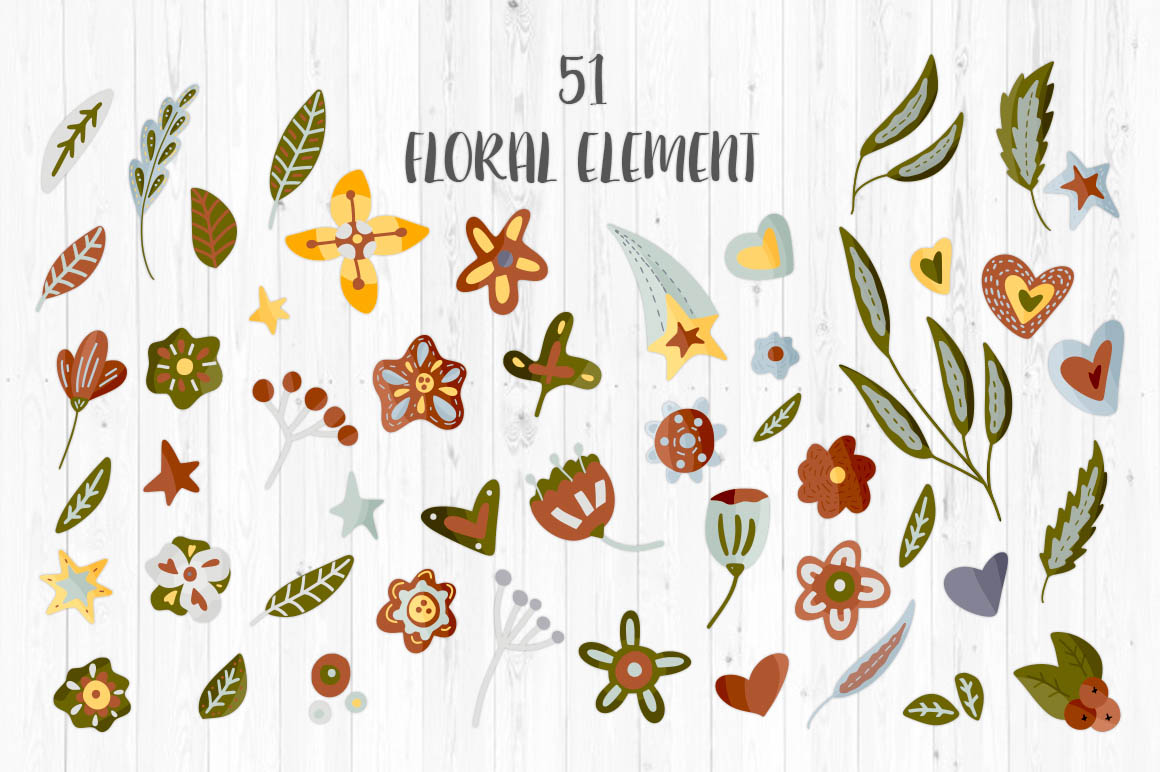
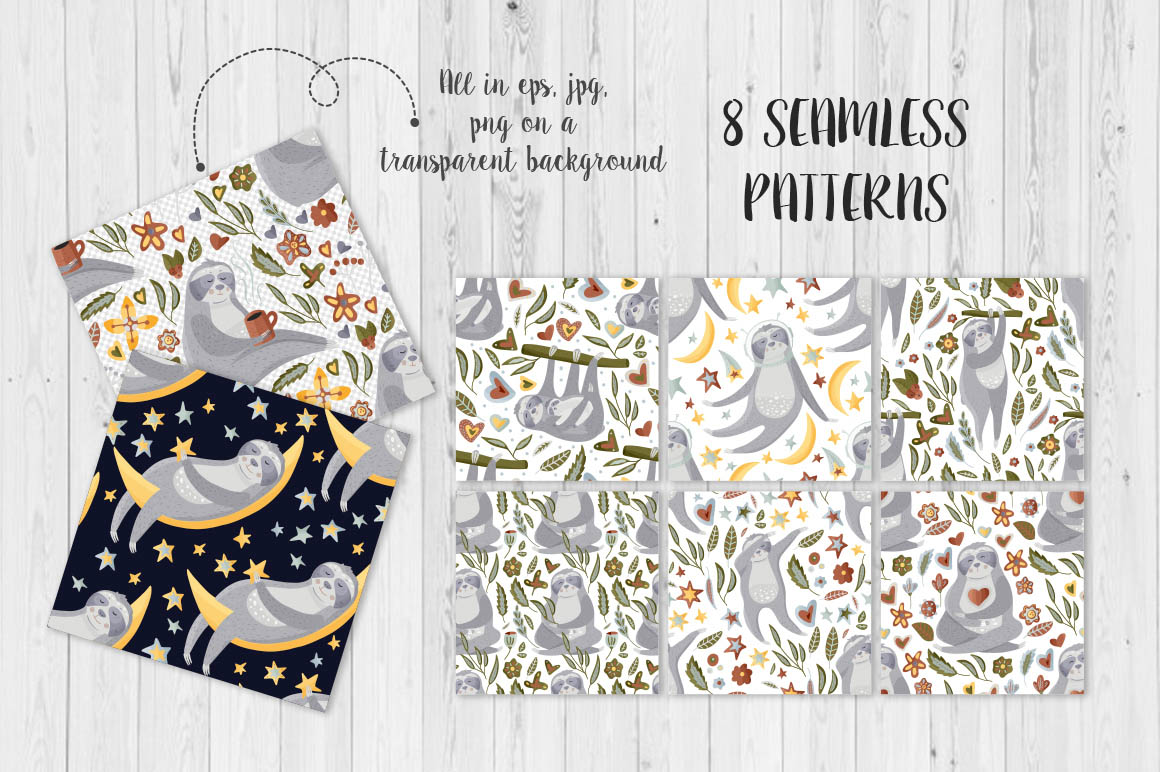
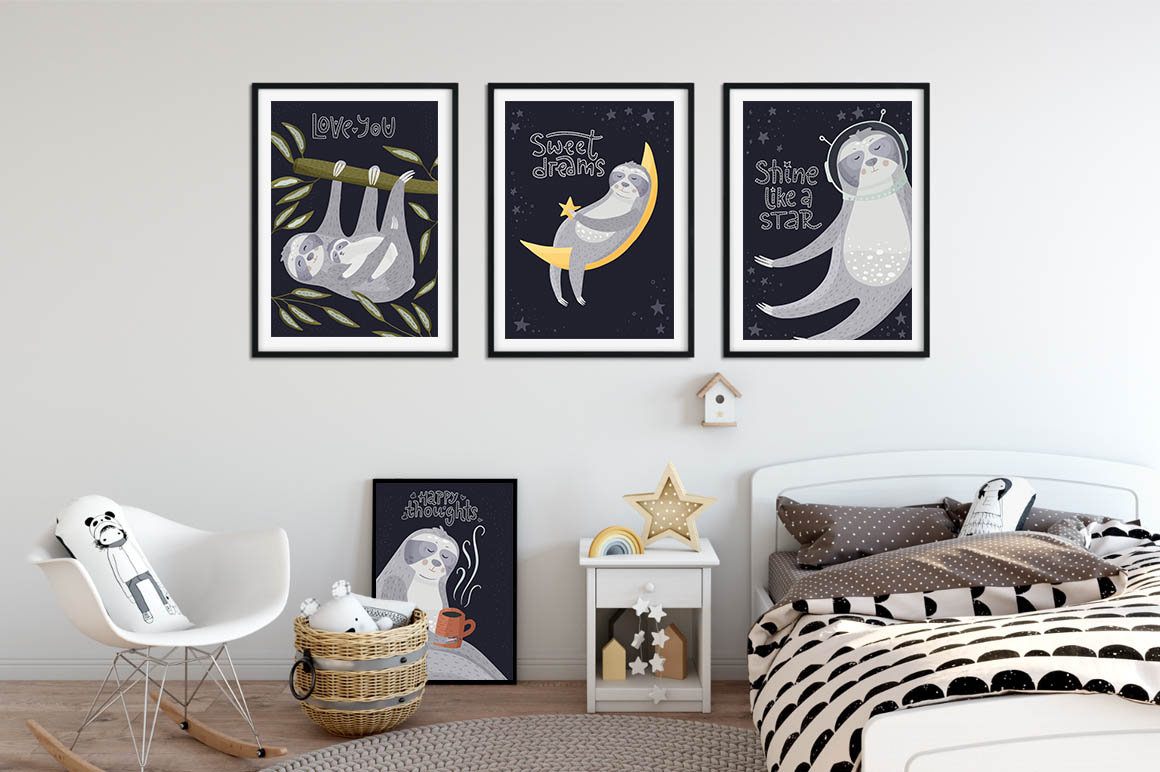
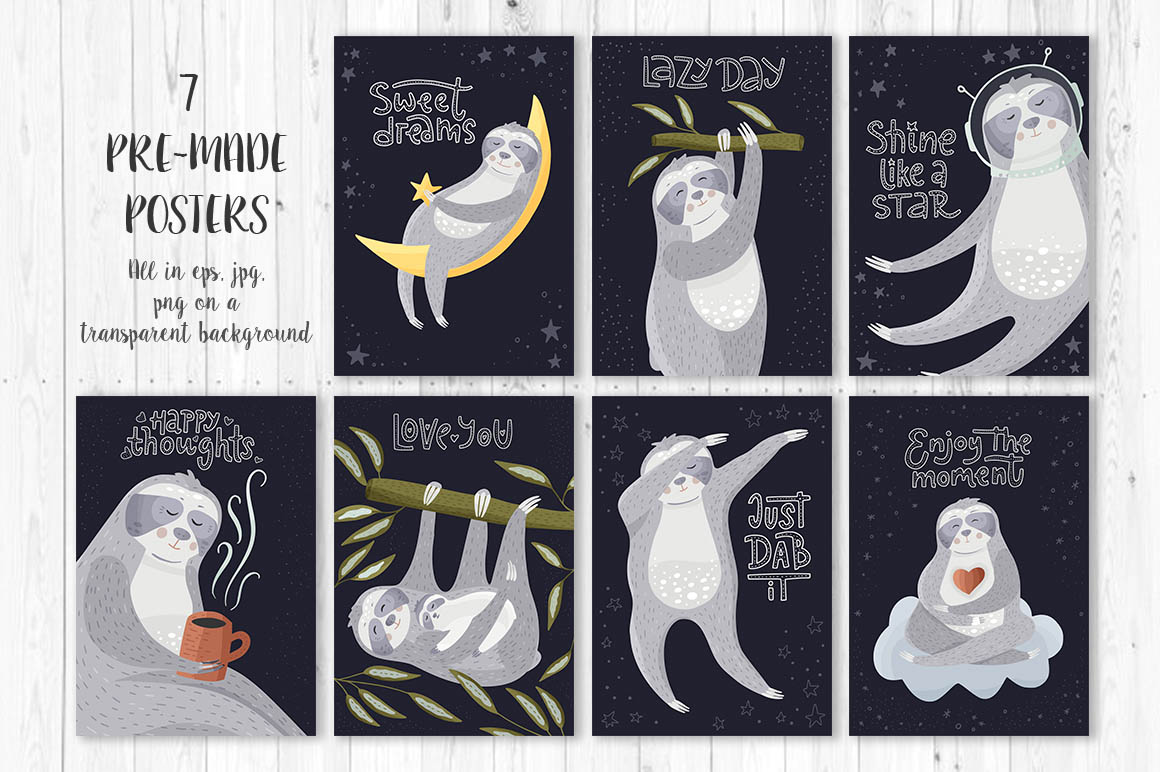
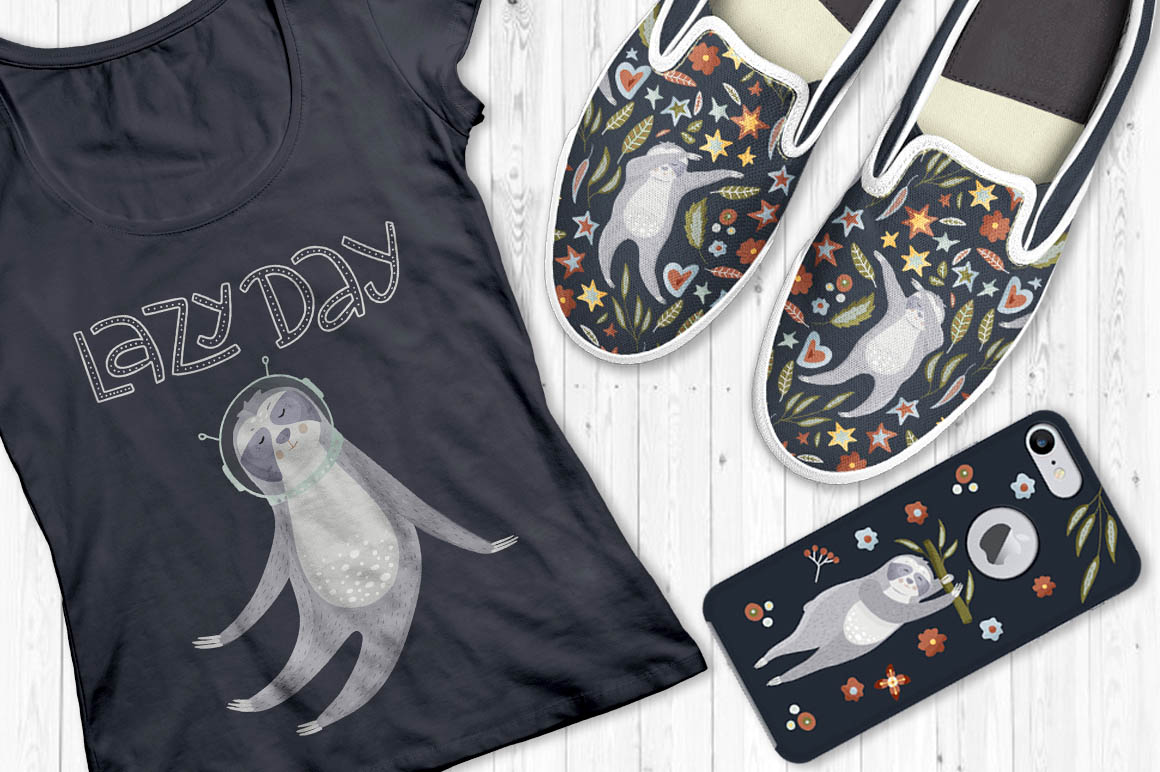
02. Cozy fall – Big design collection from RedInk
‘COZY FALL’ is a big collection with detailed autumn cliparts, lettering messages, seamless patterns and pre-made cards.
Hand painted fall clip art elements in color and outline with lettering pieces and super detailed patterns will add a little joy to any project. Use individually or all together for a fun invitation, blog template, personal print to create greeting cards or use graphic on t-shirts, posters, mugs and other beautiful projects you are working on.
Сhildren and adults, all those who love fall season will be happy to receive a thing with this big autumn collection – ‘COZY FALL’
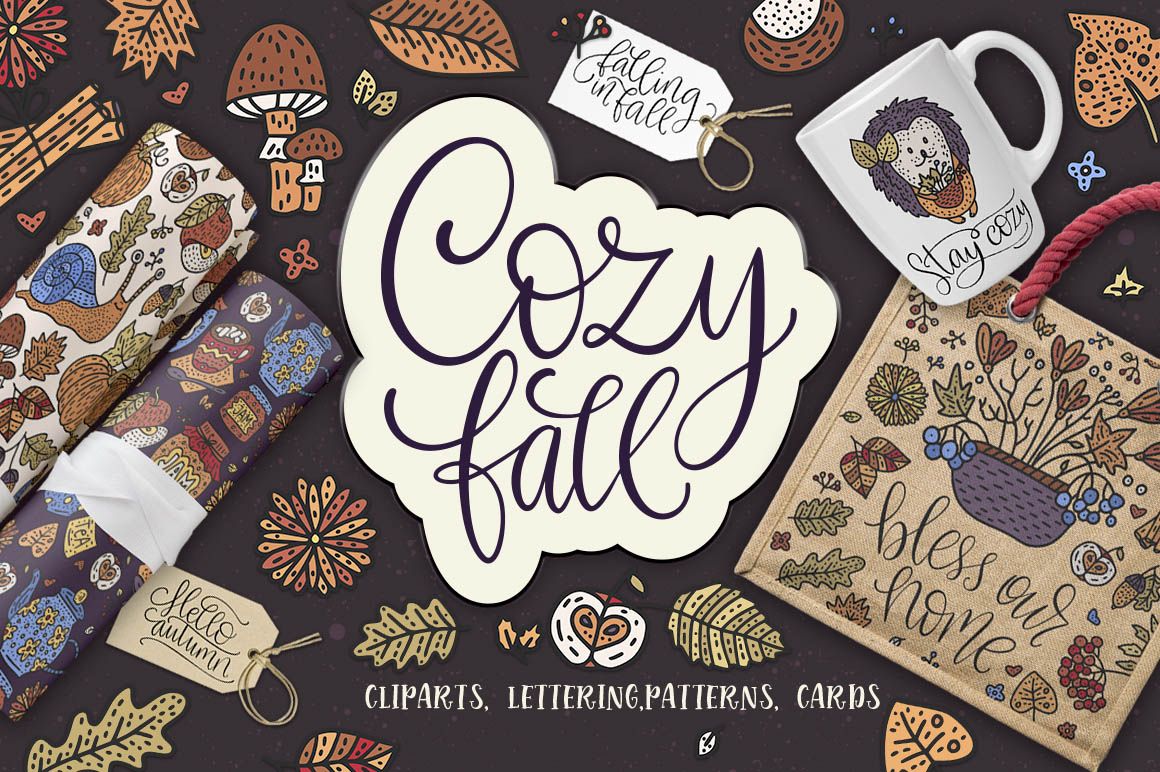
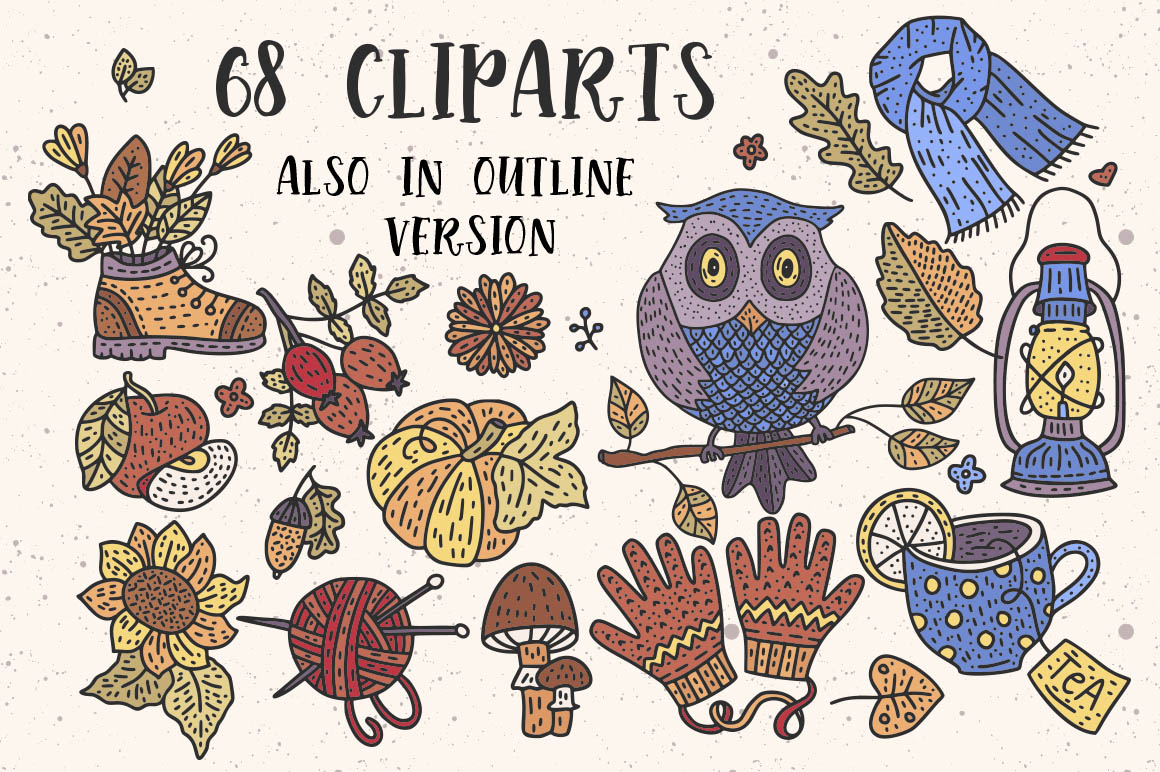
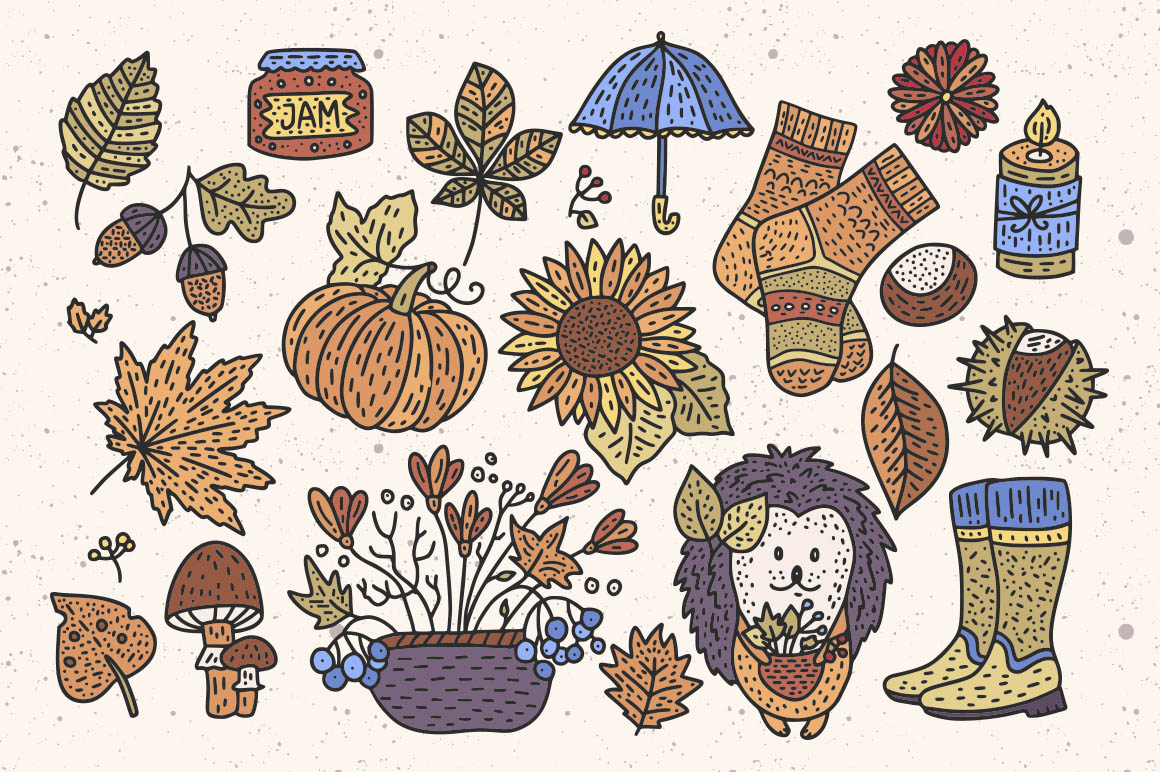
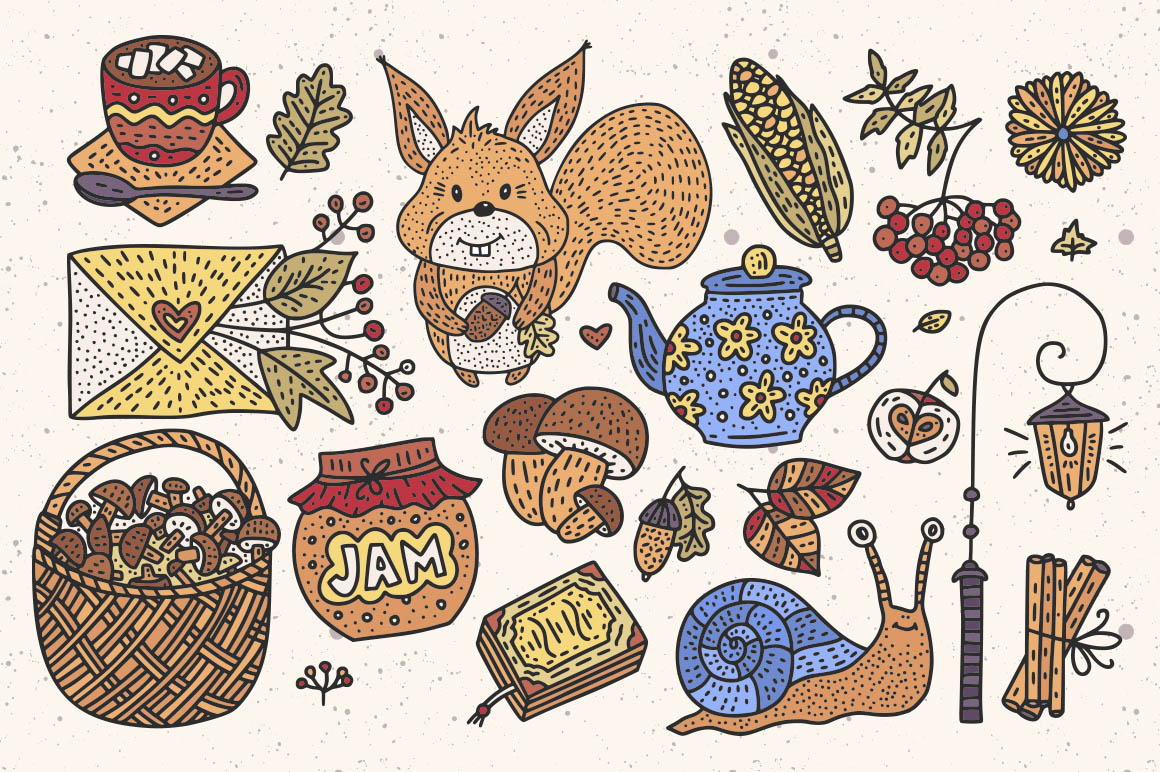
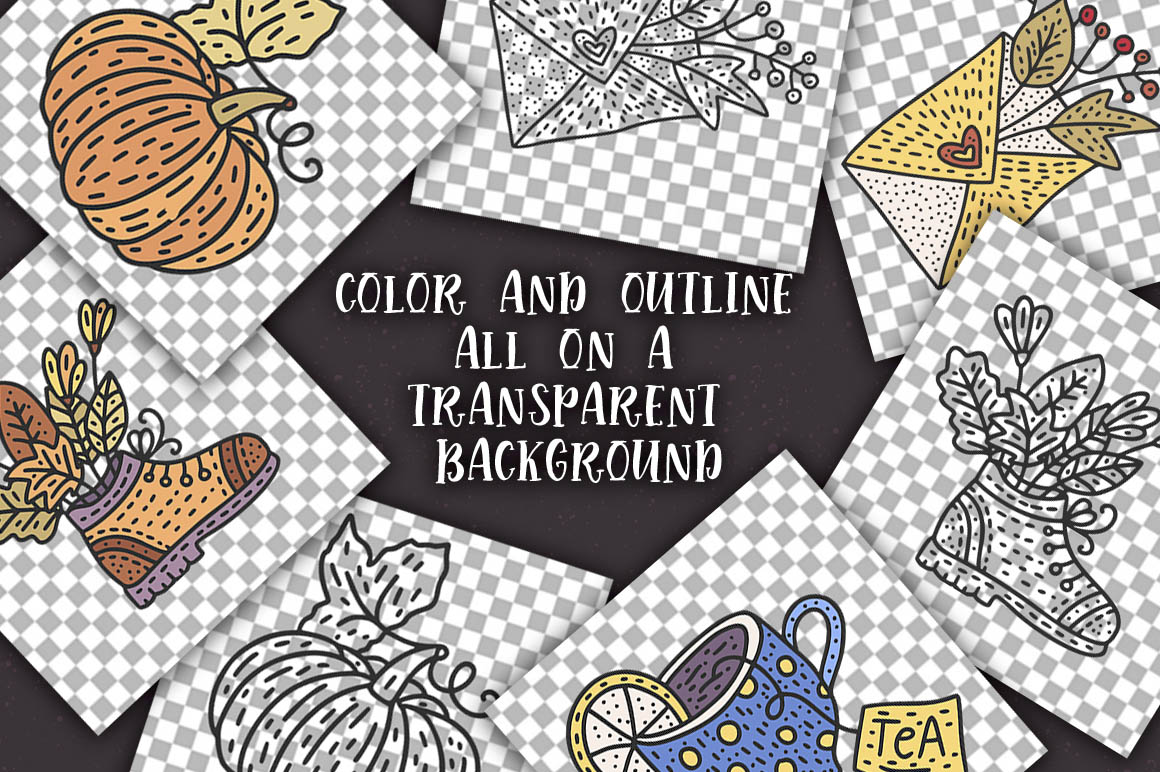
03. Forest herbs – Big graphic set from RedInk
‘Forest herbs’ is a big collection of floral and abstract elements, seamless patterns and cards, which were drawn with brush and ink & then carefully digitized.
‘Forest herbs’ is perfect for packaging, logos, invitations and home décor.
This set was created with incredible inspiration by Scandinavian interior trends and amazing fall Norway nature. I plan to use these designs in my home as home textiles, wall pictures and kitchen spice packaging.
You can use patterns for seamless designs and separate art pieces, use cards as frames and creative backgrounds, mix & match individual floral and abstract elements to create unique designs. Possibilities are endless!
04. By night – Transparent watercolor set from RedInk
‘By night’ is a big collection of floral and abstract watercolors, seamless patterns and frames, which were drawn by hand & then carefully digitized.
‘By night’ is perfect for textile, packaging, logos, invitations and home décor.